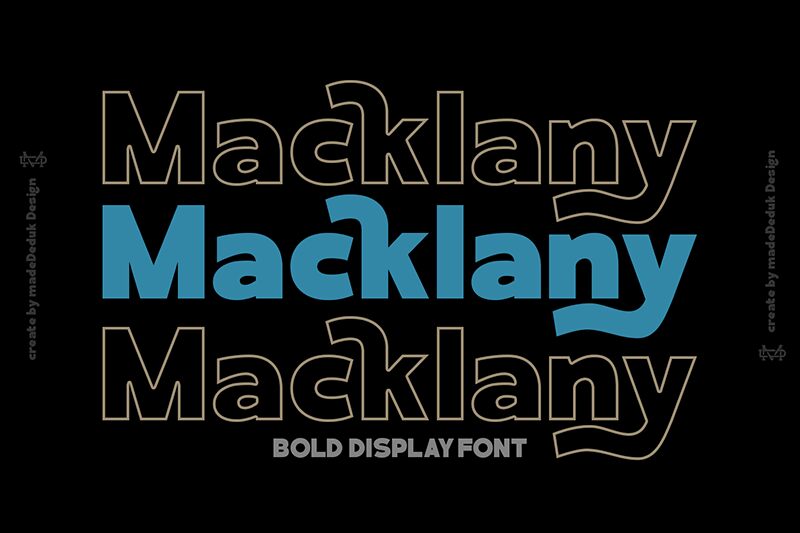
Macklany Demo Regular
Macklany font designed by madeDeduk is a bold free sans serif font with a modern aesthetic and strong presence. Geometric influence is noticed in its glyphs’ shapes from counters, to stems, to the letter ending angles. The thickness of the letters is what gives them their robustness and also leads to excellent legibility even in small-size use.
This powerful set of typography is perfect for business branding, professional logos, poster designs, advertising layouts, social media captions and covers, product label design (especially for beverages), photography watermarks, magazines titles/subtitles. Make the most out of it freely in your project wherever you see fit!